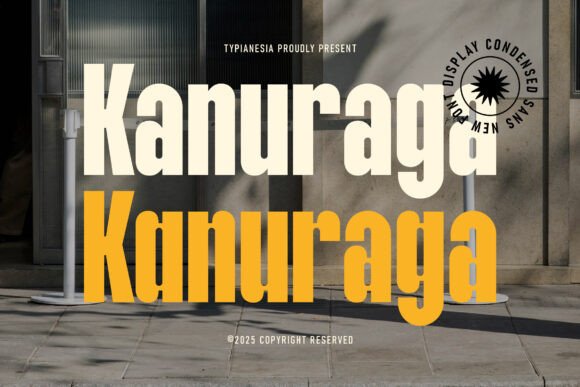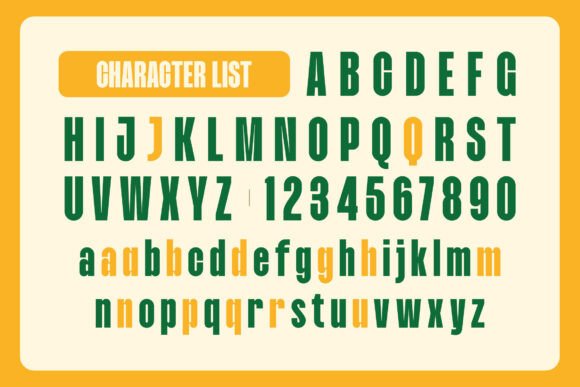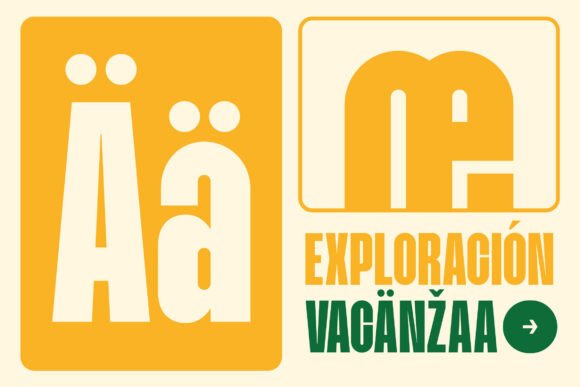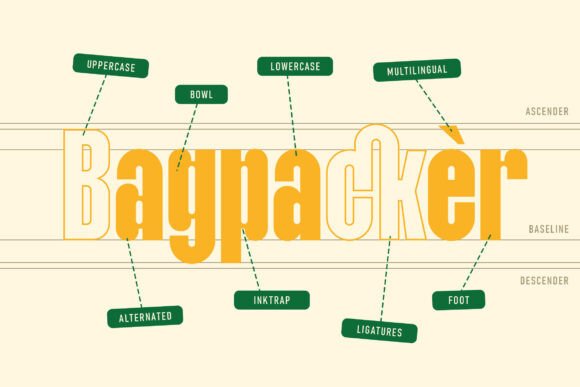
Kanuraga Font: Bold Modern Display Font for Logos & Urban Branding
About the Kanuraga Font
Crafted with precision, the Kanuraga Font is ready to bring your ideas to life. Kanuraga is a bold and modern condensed sans display font with a strong, structured appearance. Its clean lines and compact design make it perfect for creating a striking and impactful visual presence, such as branding, posters, headlines, advertising, logos, editorial design, packaging, sports themes, urban-style projects, and any project that requires a touch of modern professionalism.
Kanuraga’s strong, condensed forms excel in headlines, logos, and short impactful phrases. It’s less suitable for body text or UI elements where readability over long stretches is crucial. Its bold personality makes it ideal for brands projecting power, innovation, or a modern aesthetic.
For a balanced pairing, consider a clean sans-serif like Lato or Open Sans for body text, creating contrast without visual conflict. Alternatively, a classic serif like Garamond or a geometric sans-serif like Futura can offer a sophisticated contrast, depending on the desired level of formality.
Kanuraga’s core personality is bold and modern, conveying confidence and a sense of streamlined efficiency. It works best for projects requiring a strong visual identity and impactful messaging.